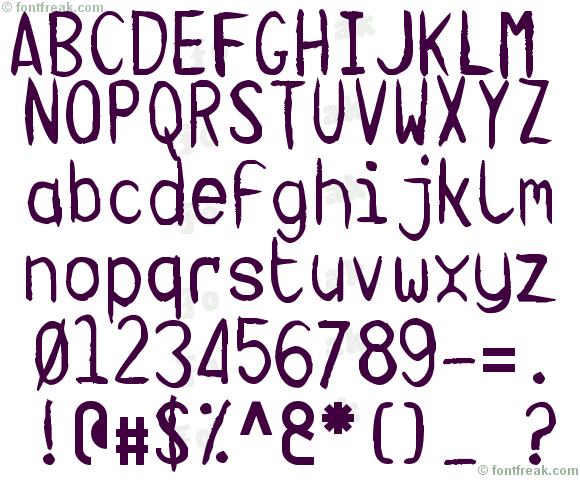
Targa MS Hand
Targa
Targa MS
About Targa MS Hand
Targa MS Hand is a unique handwritten font from the kmzero font foundry, classified under the decorative style. Its design features a playful, informal aesthetic that mimics natural handwriting, making it an excellent choice for projects where a personal touch is desired. The strokes exhibit a consistent weight, contributing to its legibility while maintaining a casual vibe. The irregularities in letterforms add character, creating an engaging visual experience. The spacing is well-balanced, allowing for smooth reading and a friendly appearance.
This font is particularly well-suited for a variety of creative applications. It shines in wedding invitations, where the handwritten style can evoke a sense of warmth and intimacy. Additionally, Targa MS Hand is ideal for children's book covers or illustrations, as it captures a playful spirit that resonates with young audiences. Restaurant menus can also benefit from its charming appearance, helping to create an inviting atmosphere. Furthermore, content creators and social media managers may find it perfect for crafting eye-catching graphics and posts that require a touch of authenticity.
What sets Targa MS Hand apart is its ability to blend artistic flair with functionality, making it an excellent choice for a wide range of design purposes. This font stands out not only for its charming appearance but also for the emotional resonance it brings to any project. For those seeking a distinct handwritten style, Targa MS Hand font free download provides an invaluable resource.